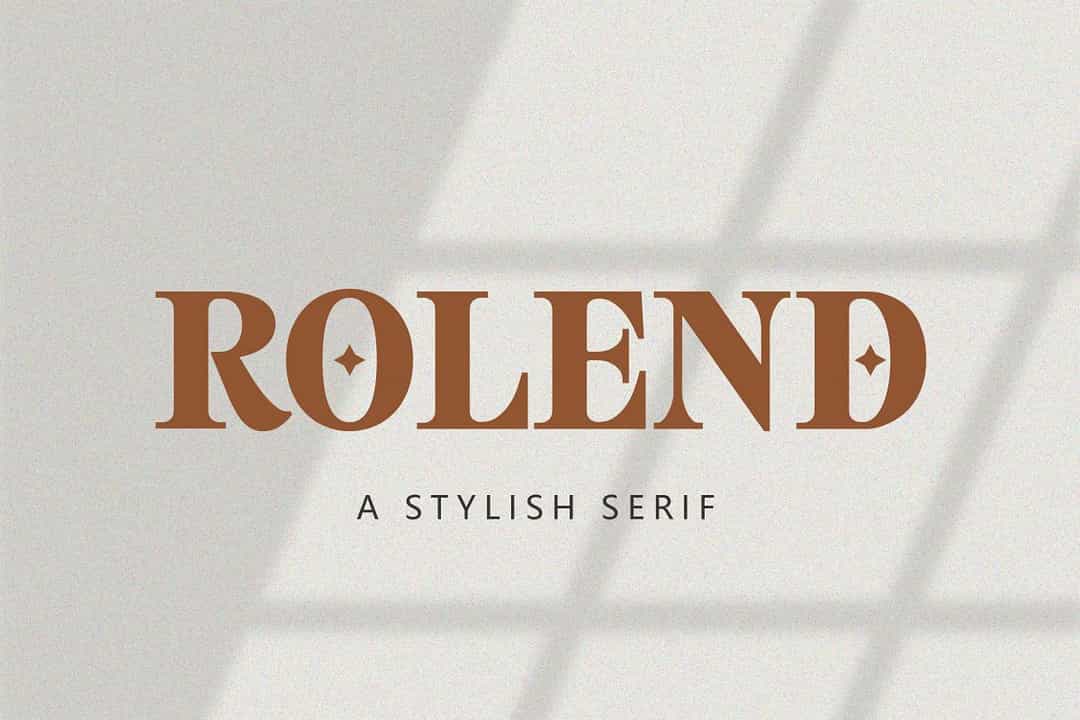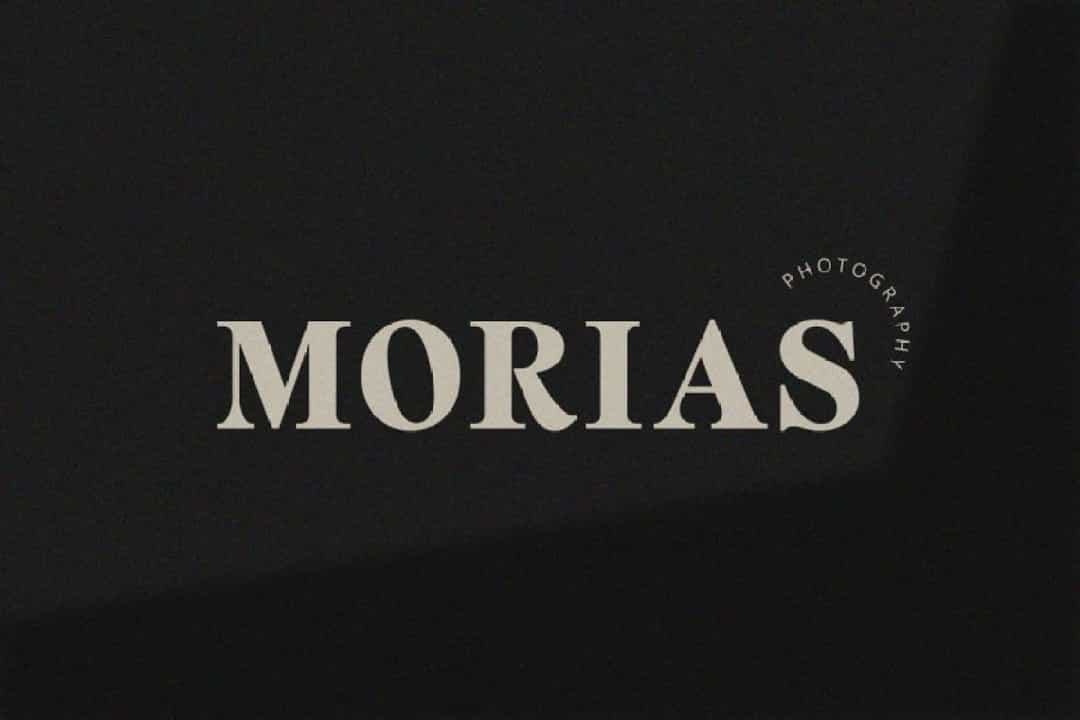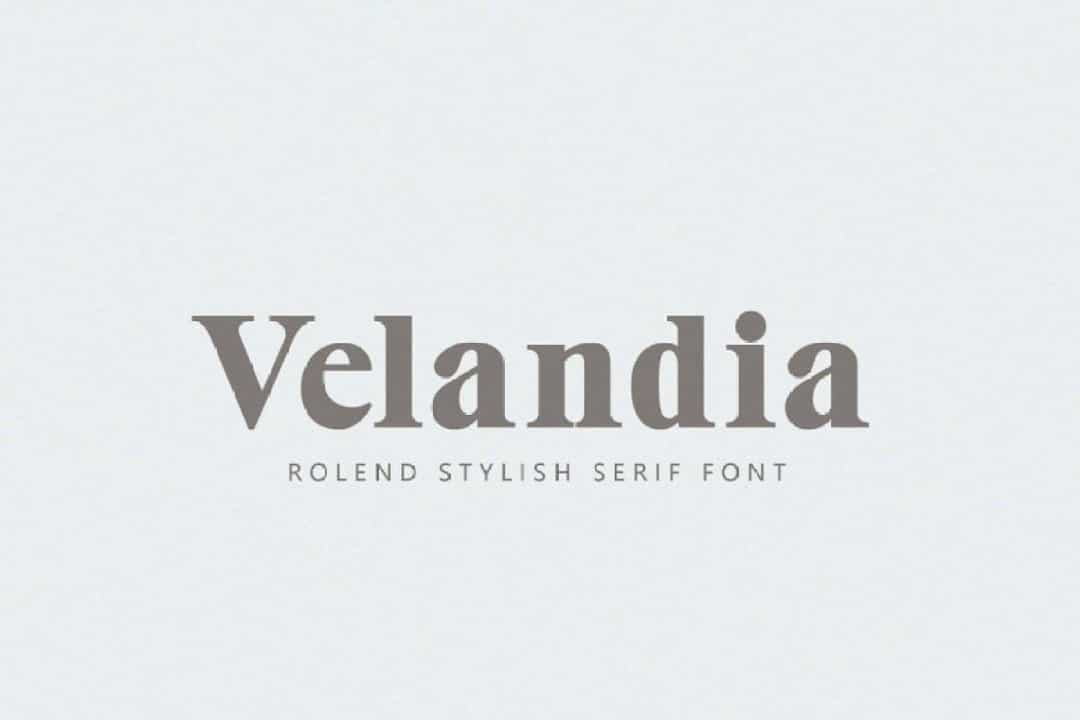
Discover Rolend Font, part of the Serif collection—a versatile and unique font perfect for adding a personal touch to your projects. Download it for free and enjoy crafting designs with style, from invitations to social media posts. This font is available exclusively for personal use, giving you the freedom to create without limits. Unlock your creativity with Rolend Font today!
Rolend is an elegant serif font suitable for many promotional applications such as packaging for products, branding or invitation, quote or t-shirt printout, label poster display and any logo creation you might need to do.